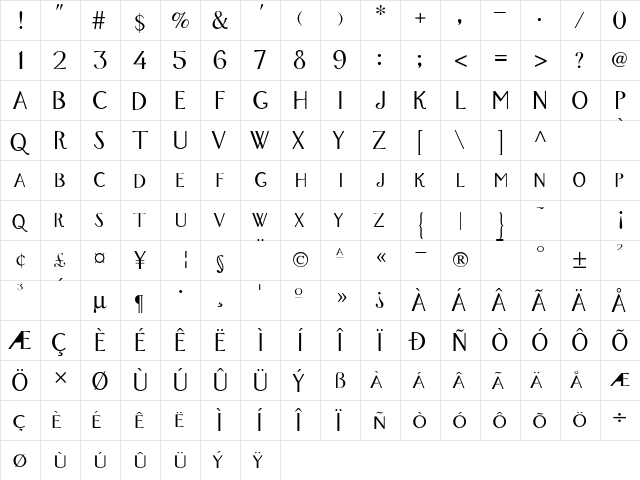
CadizSCapsSSK Regular
Design Context for CadizSCapsSSK Typeface
CadizSCapsSSK offers clean, dependable letterforms without strong stylistic allegiance, making it a practical choice for designers who need flexibility.